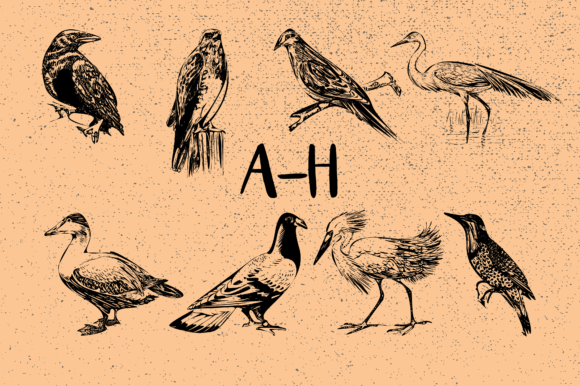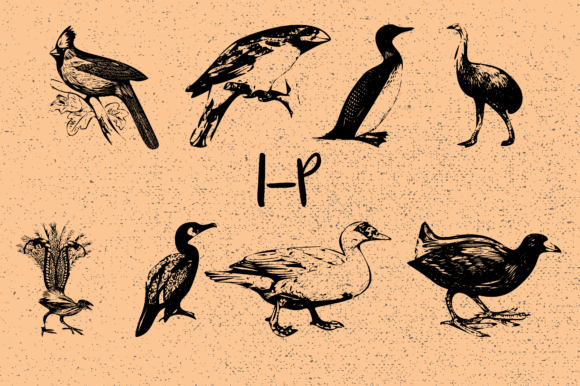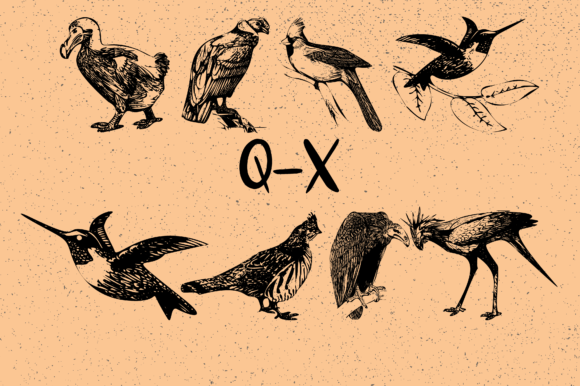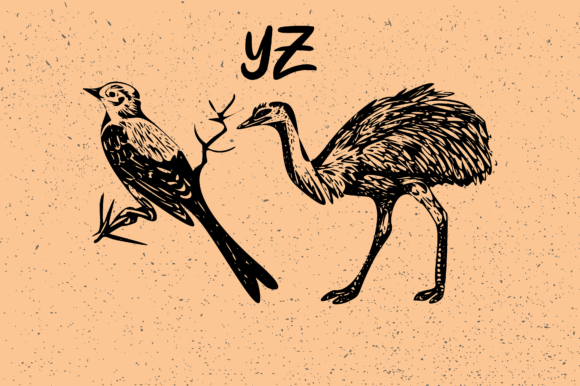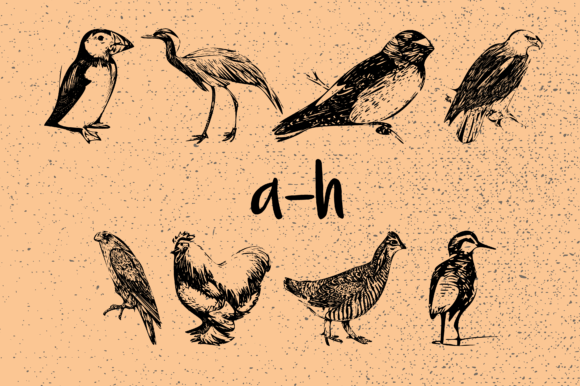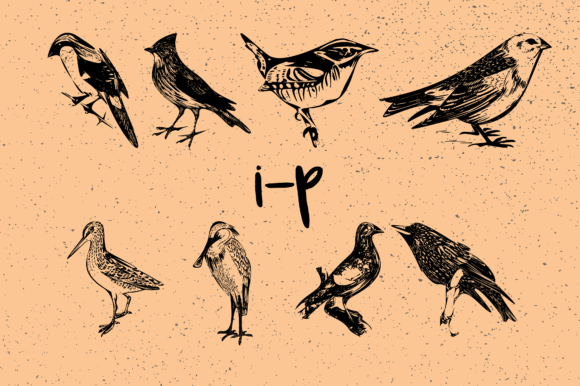
Birds Font: Elevate Your Designs with a Flock of Creative Possibilities
Are you a designer, crafter, or DIY enthusiast looking to add a touch of whimsy and charm to your projects? Look no further than Birds Font, a unique and versatile dingbats font that brings a world of creativity to your fingertips. With Birds Font, you can easily generate 62 different bird glyphs by simply typing capital letters, small letters, and numbers, making it an ideal addition to your font collection.
What is Birds Font?
Birds Font is a specially designed dingbats font that replaces traditional characters with a diverse range of bird illustrations. From majestic eagles and playful sparrows to exotic birds of paradise, this font has been carefully crafted to provide a vast array of avian-inspired glyphs. Whether you’re working on a graphic design project, crafting a handmade card, or creating digital art, Birds Font offers a fresh and exciting way to add visual interest and personality to your work.
Key Features of Birds Font
- 62 Unique Bird Glyphs: With Birds Font, you get access to an impressive collection of 62 different bird glyphs, each one meticulously designed to showcase the beauty and diversity of our feathered friends.
- Easy to Use: Simply type capital letters, small letters, and numbers to generate the corresponding bird glyphs. No complicated design software or technical expertise required!
- Versatile: Birds Font is perfect for a wide range of creative projects, including graphic design, digital art, crafting, and more.
- Scalable: The font is designed to be scalable, ensuring that your bird glyphs look great in any size or resolution.
Birds Font offers endless creative possibilities for designers and crafters. Here are a few ideas to get you started:
- Wildlife Illustrations: Use Birds Font to create stunning wildlife illustrations, featuring a variety of bird species in their natural habitats.
- Decorative Banners: Add a touch of whimsy to your designs with decorative banners featuring bird glyphs.
- Handmade Cards: Create one-of-a-kind handmade cards for bird enthusiasts, featuring beautiful bird illustrations.
- Digital Art: Experiment with Birds Font in your digital art projects, combining bird glyphs with other design elements to create unique and eye-catching compositions.